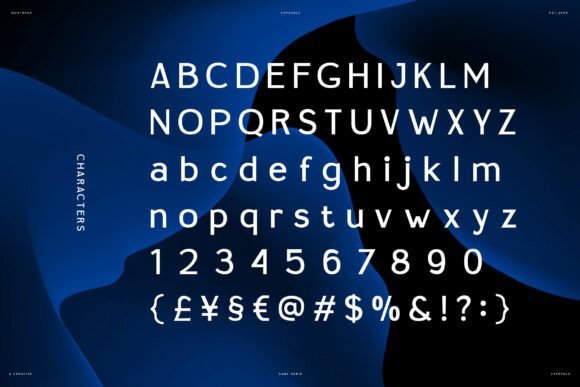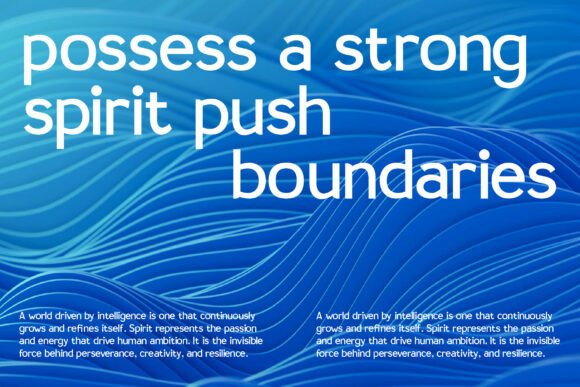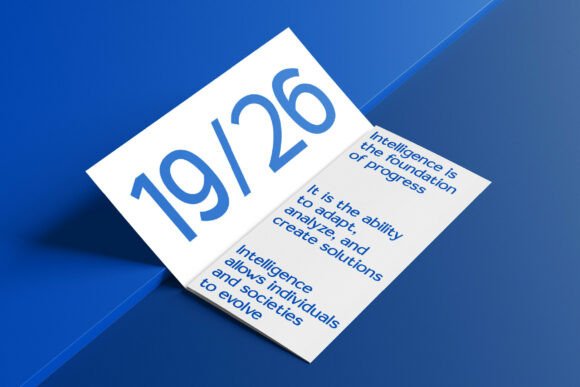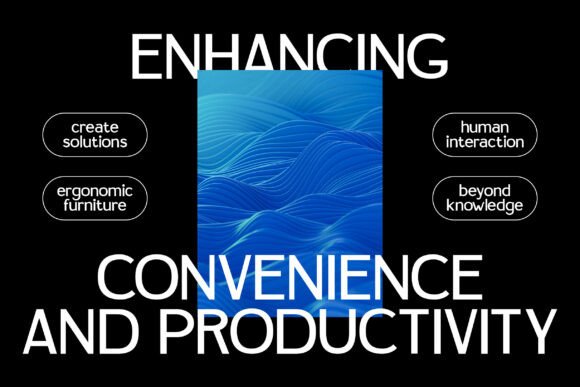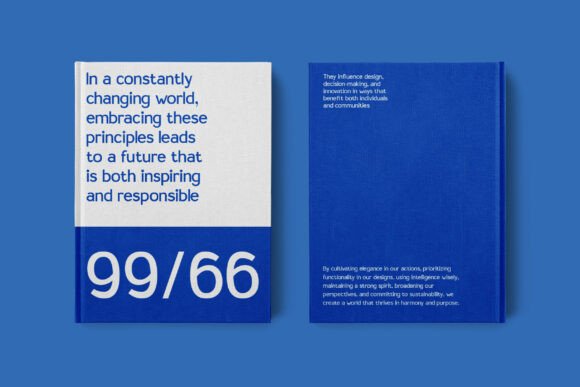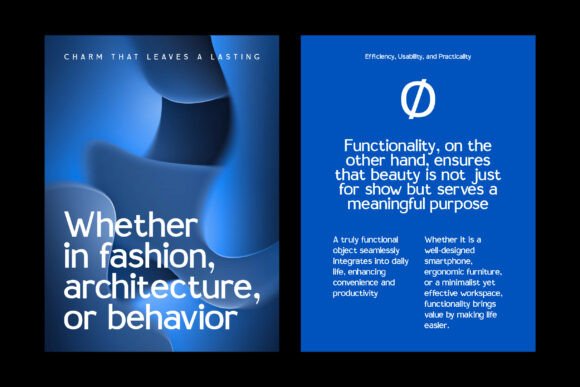
Introduction to Dustrone Font
Have you ever found yourself staring at a blank canvas, wondering which design resource to use for your next creative project? The search for the perfect font can be overwhelming, especially when you’re looking for something that screams ‘high-tech’ and ‘innovative’. That’s where Dustrone Font comes in – a sleek and futuristic sans serif font that’s sure to elevate your design game.
As a designer, you know how crucial it is to have a reliable font that can keep up with your creative vision. Dustrone Font is not just another font; it’s a tool that can help you convey a sense of professionalism and style, whether you’re working on a product packaging design or a digital interface. With its clean lines, subtle geometric curves, and unique glyph alternates, this font is a free download waiting to be explored.
- High-quality design resource for creative projects: Dustrone Font is a premium font designed to elevate your visual content.
- Large character set: This font includes a vast range of characters, including Latin, Cyrillic, and Greek alphabets, making it suitable for multilingual projects.
- Perfect for digital and print projects: This font is ideal for use in logos, branding materials, and other creative projects that require a unique and stylish touch.
Honest Review: Dustrone Font
I recently had the chance to experiment with the Dustrone Font, and I’m excited to share my thoughts on this design resource.
What works well: ✨ The font is incredibly versatile, suitable for a wide range of creative projects, from posters to digital interfaces. I appreciate the transparent background option, which makes it easy to customize and integrate with any design. The high-quality design ensures that text remains clear and readable, even at smaller sizes.
Common Use Cases for Dustrone Font
The Dustrone Font is suitable for a wide range of creative projects, including logos, brochures, business cards, and social media graphics. Its high-quality design makes it an excellent choice for professionals and hobbyists alike.